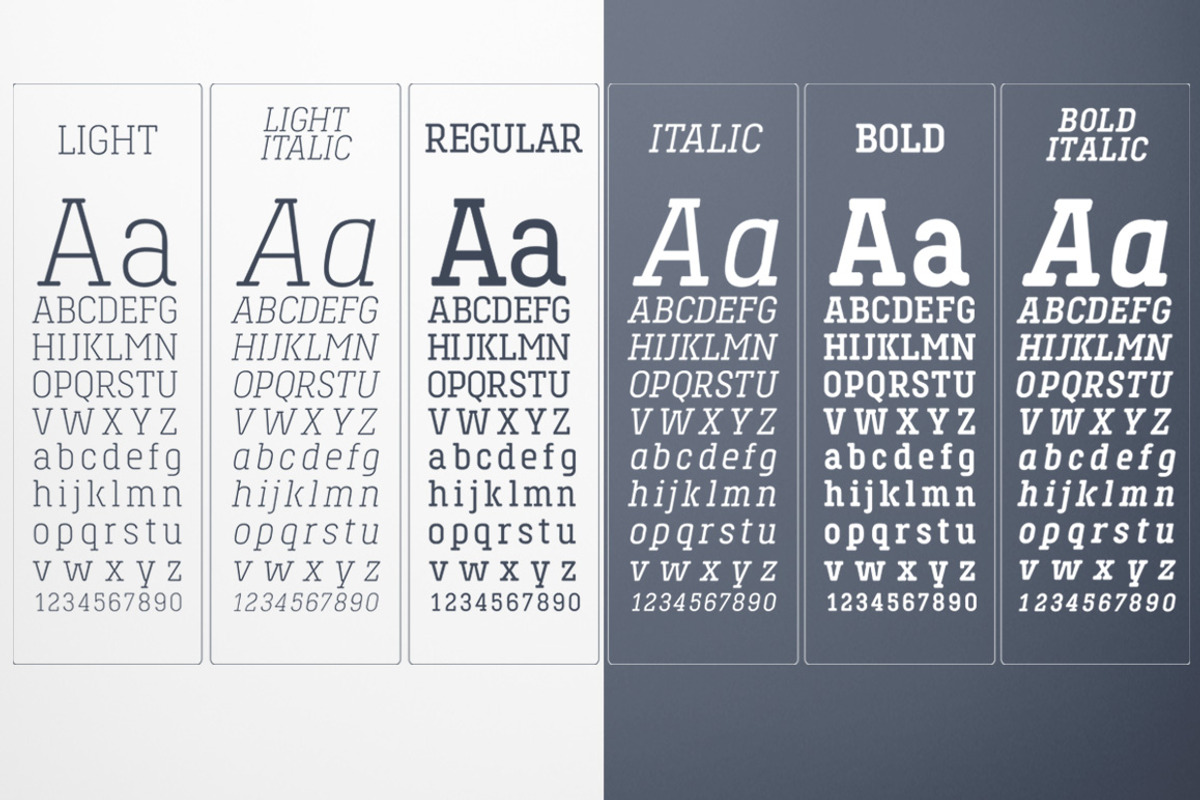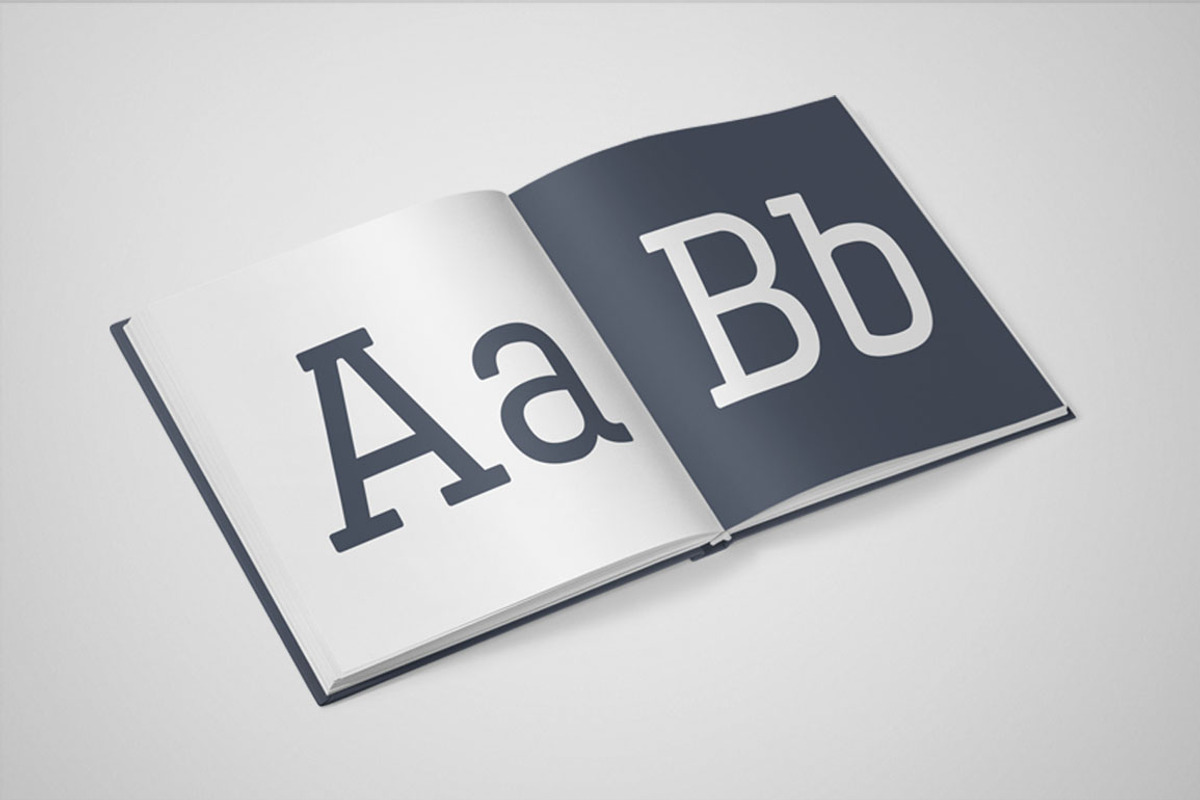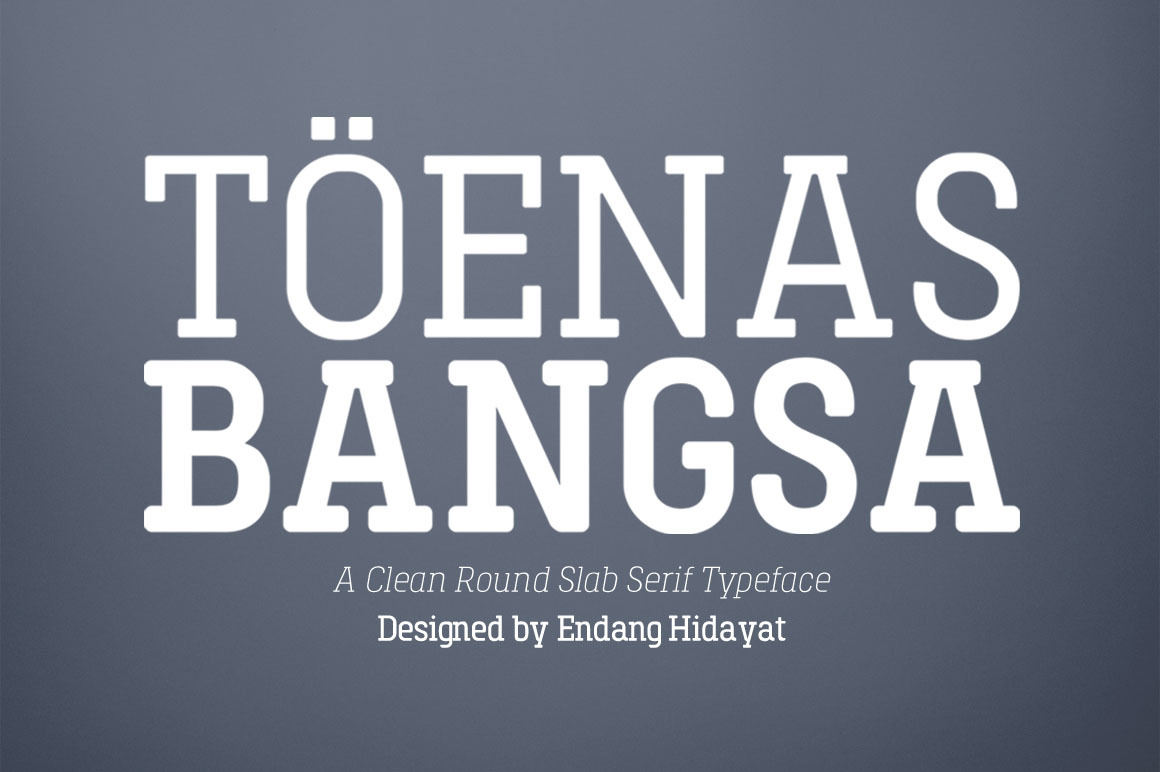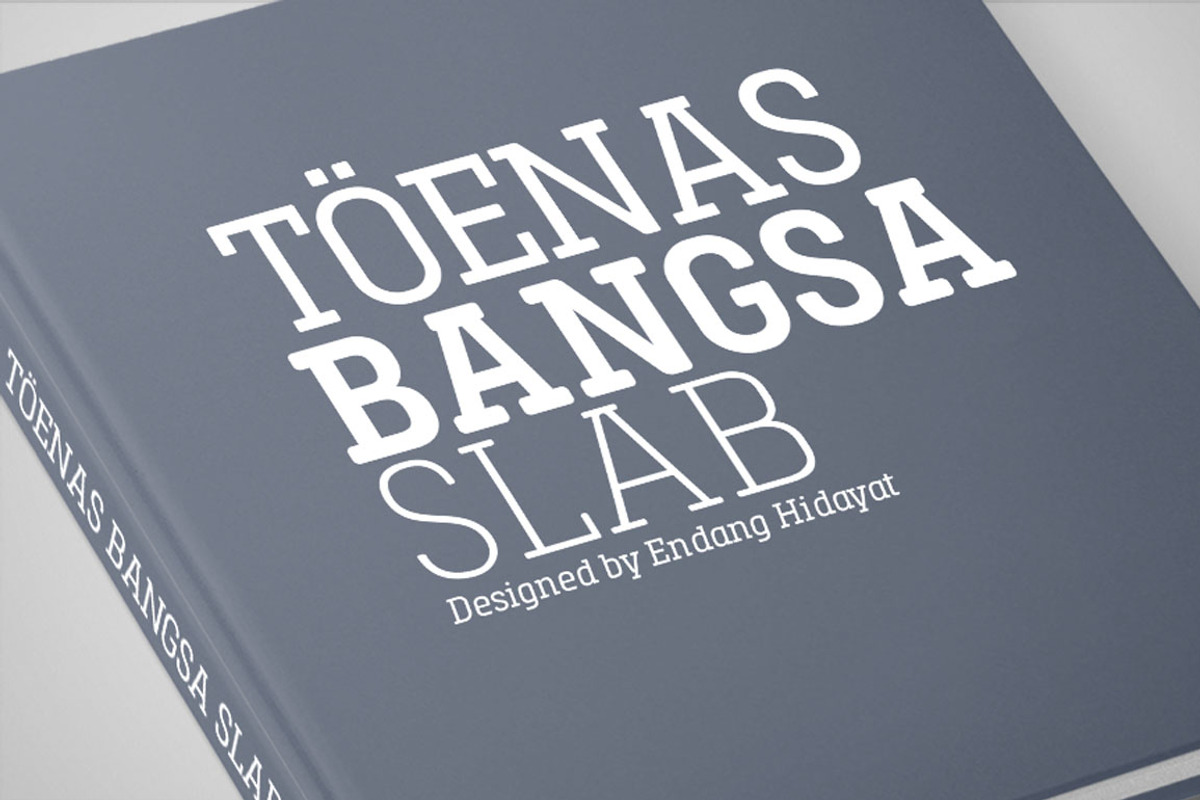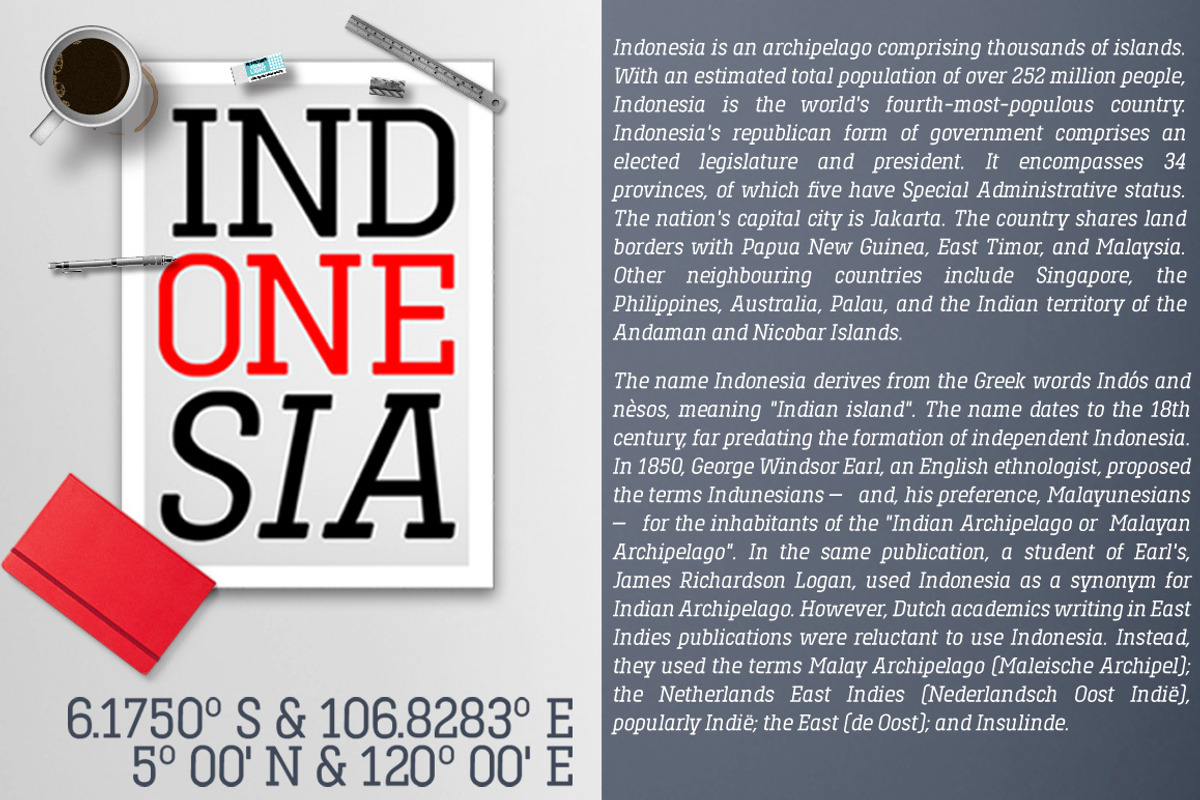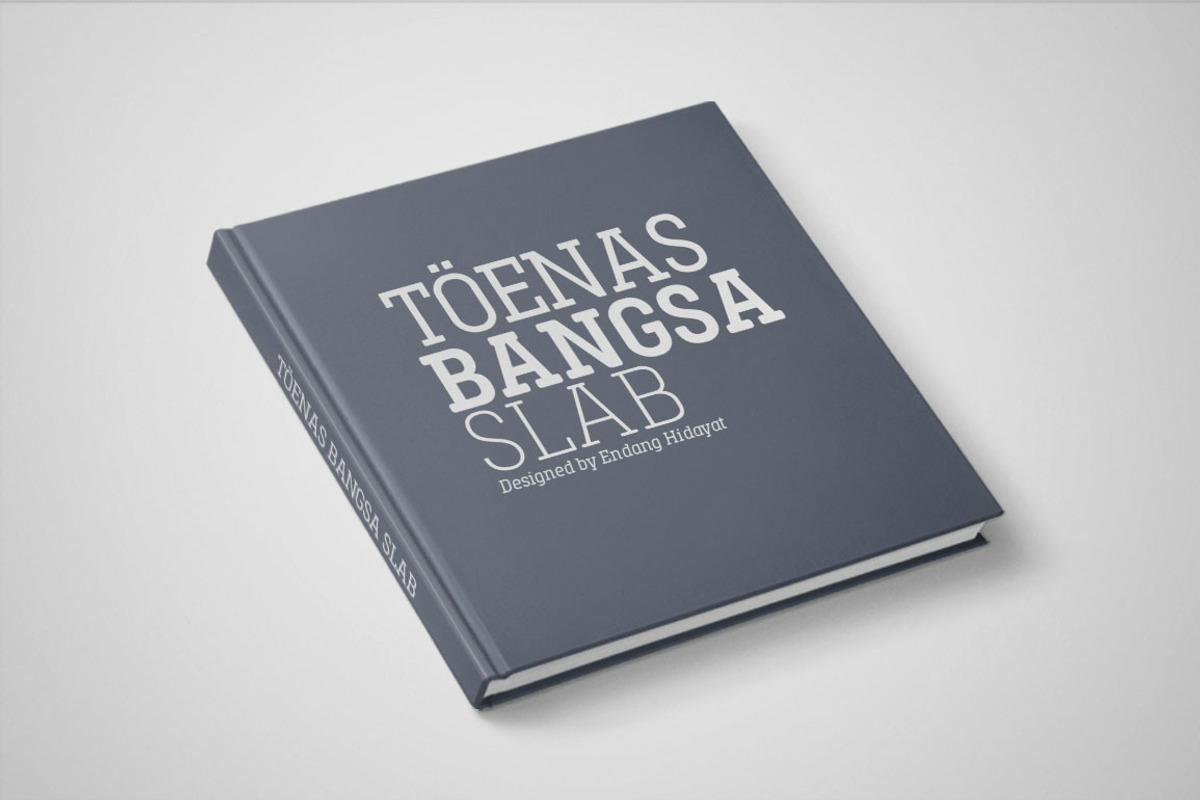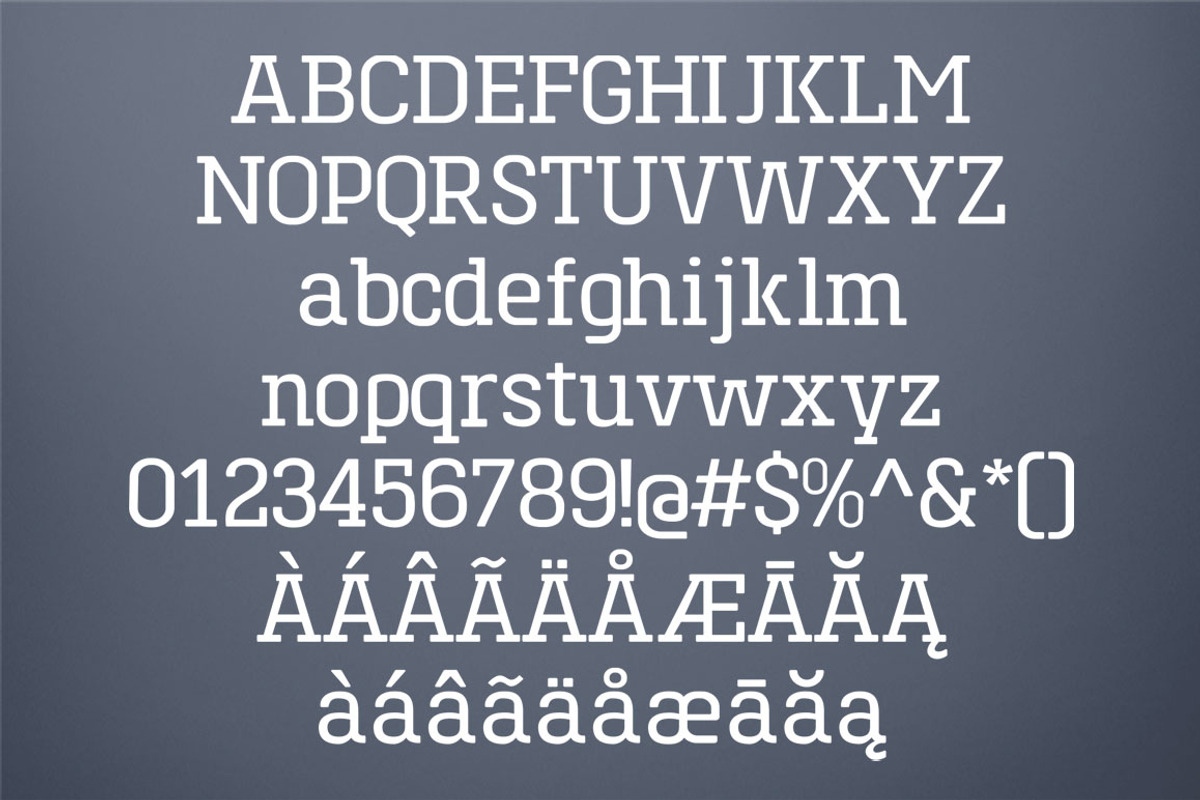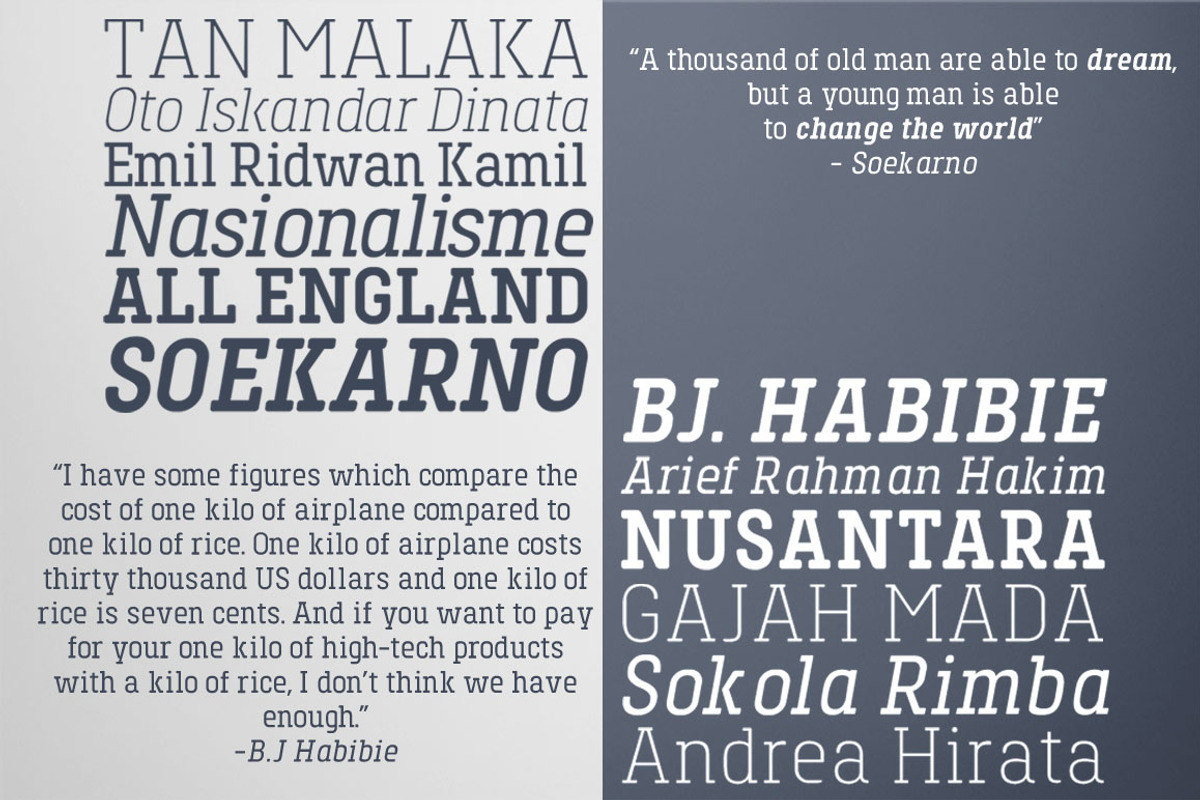
Toenas Bangsa Font Family
Designed and built in Jakarta,Indonesia by Endang Hidayat (Bang Kumis Typefoundry). Toenas Bangsa Slab is clean rounded slab serif font. Uses clean line and smooth round curves. Mix old slab serif style with modern clean font. Look simple, elegant and readable. Toenas Bangsa Slab is made up with 6 style, wich from Light to Bold plus beautiful italic. Good choice for your logotype, headline, print application, quotation or short texts.
OpenType features include ligatures and fractions. Toenas Bangsa Slab supported several European Language.
Feature Summary :
- 3 weights
- Italic Sets
- Support several European Language
- Most Latin-based scripts supported
- Fractions